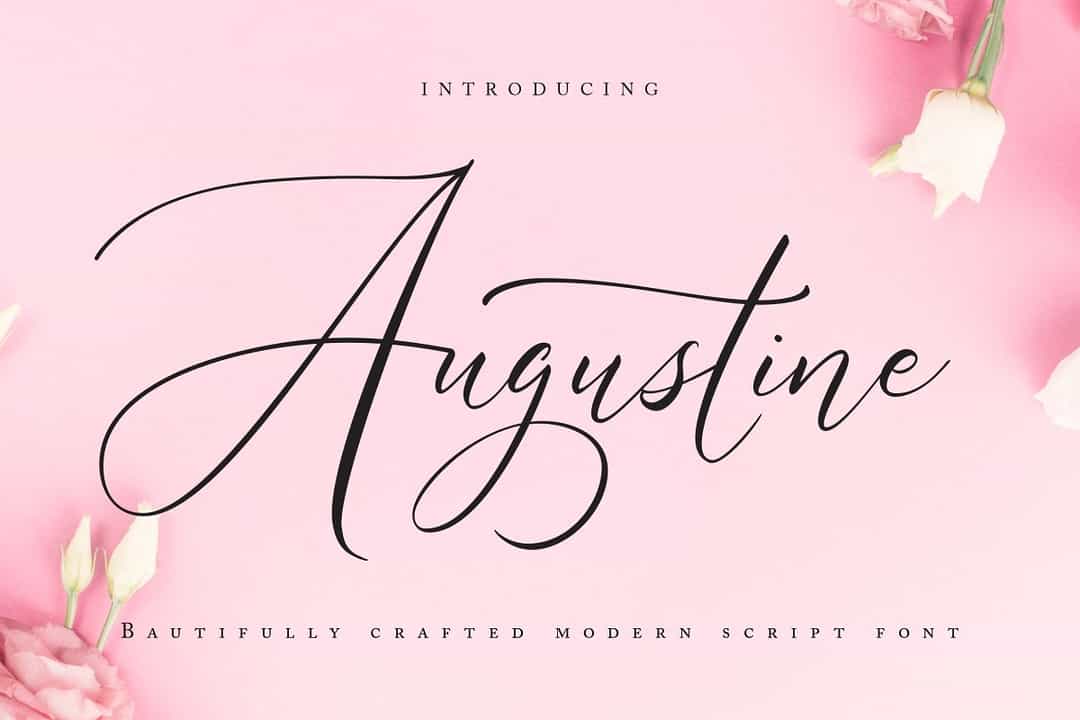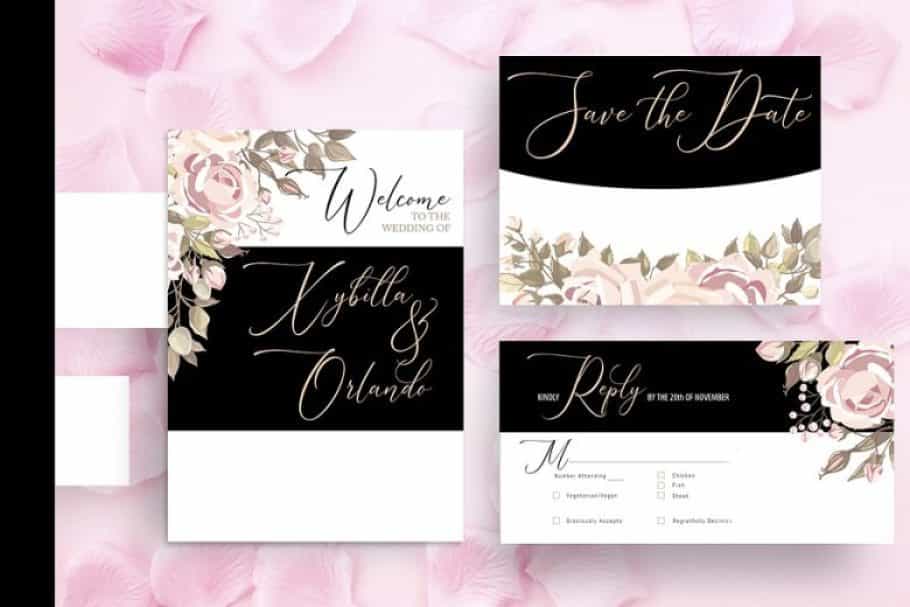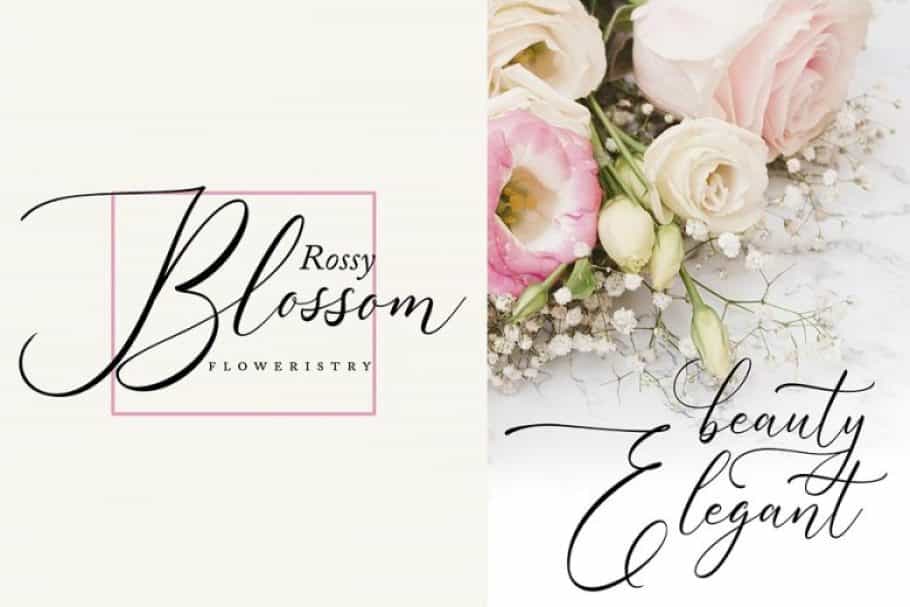
Augustine is a modern, classy font suited best for wedding invitation, branding, and cards and even red wine labels. Augustine includes the lower case letters that have the beginning and the ends swashes, which make this font truly splendid. It would be perfect for use alone as a welcome card or as an invitation to a special occasion for instance, a wedding!